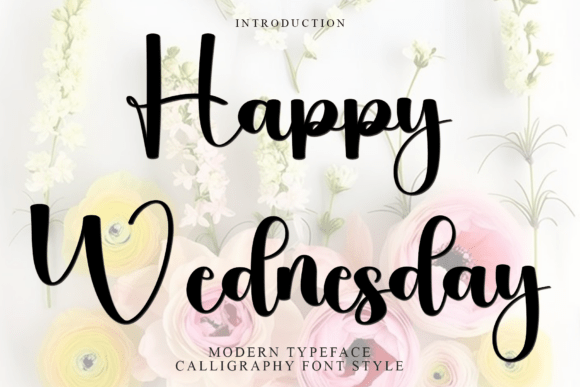
Discover the Joy of Typography: Introducing Happy Wednesday Font
As a designer, there’s nothing quite like that moment of pure inspiration when a font sparks an idea and sets your creative juices flowing. It’s a feeling that’s hard to replicate, but one thing’s for sure – when you find the right font, magic happens. For those seeking a unique and captivating typography experience, we’re excited to introduce the Happy Wednesday Font, a beautiful and eye-catching design that’s sure to bring a smile to your face.
This charming font is more than just a pretty face; it’s a versatile tool that can elevate your designs and bring a touch of personality to your creative projects. With its soft, distinctive strokes, the Happy Wednesday Font is perfect for a wide range of applications, from crafting and design to digital projects and beyond.
Key Features of “Happy Wednesday Font”
- Font Family: A playful, cursive font designed to evoke a sense of joy and celebration.
- Unique Characteristics: Features a dynamic, swash-like design that adds a touch of whimsy and personality to any text.
Happy Wednesday Font Review
I recently had the chance to work with the “Happy Wednesday Font” and I must say, it’s a mixed bag. Let’s start with the good stuff ✨.
- Fun and Playful Vibe – This font truly lives up to its name. It’s perfect for creating a lighthearted and approachable atmosphere in your designs.
- Great for Titles and Headings – The font’s bold and expressive qualities make it ideal for use in titles, headings, and other prominent design elements.
- Customization Options – The font’s creators have included a range of customization options, allowing you to fine-tune the font to fit your design needs.
However, there are also some limitations to consider ⚠️.
- Limited Readability at Smaller Sizes – While the font is perfect for titles and headings, it can become difficult to read at smaller font sizes.
- Not Ideal for Body Text – The font’s playful vibe and expressive qualities can make it difficult to use for large blocks of body text.
Overall, I’d say the “Happy Wednesday Font” is a great choice for designers looking to add a touch of personality to their designs. Just be sure to use it wisely and in the right context.
Here are some tips for getting the most out of the Happy Wednesday Font:
- Use it to add a playful touch to your designs.
- Combine it with bold fonts for a striking contrast.
- Use it for social media posts, flyers, and other promotional materials.